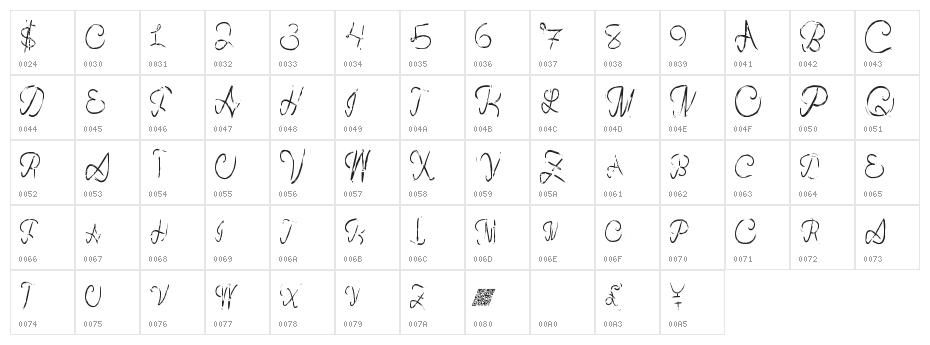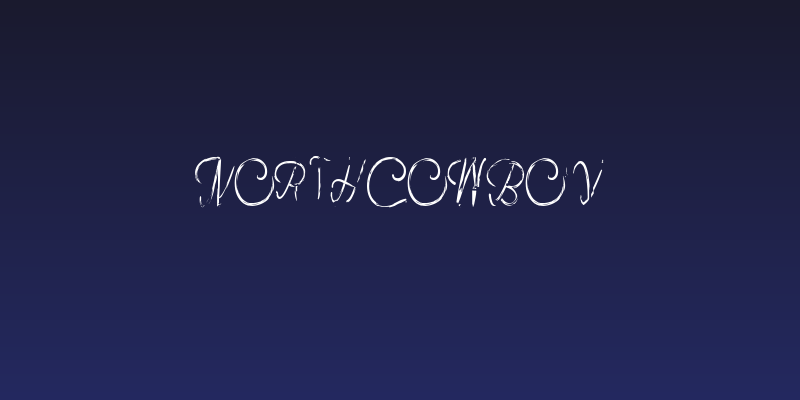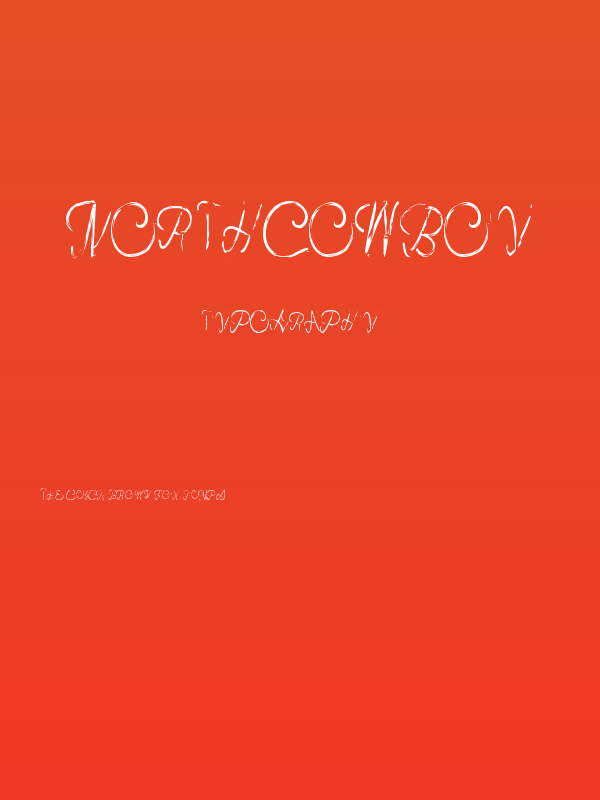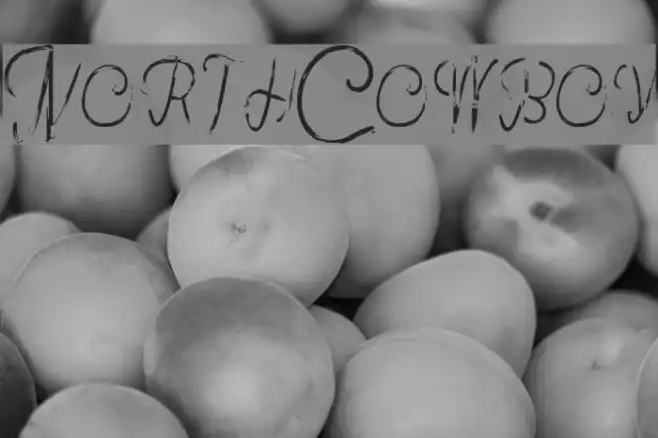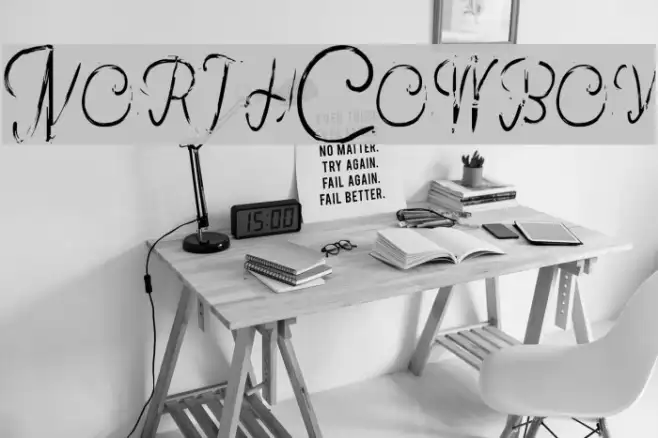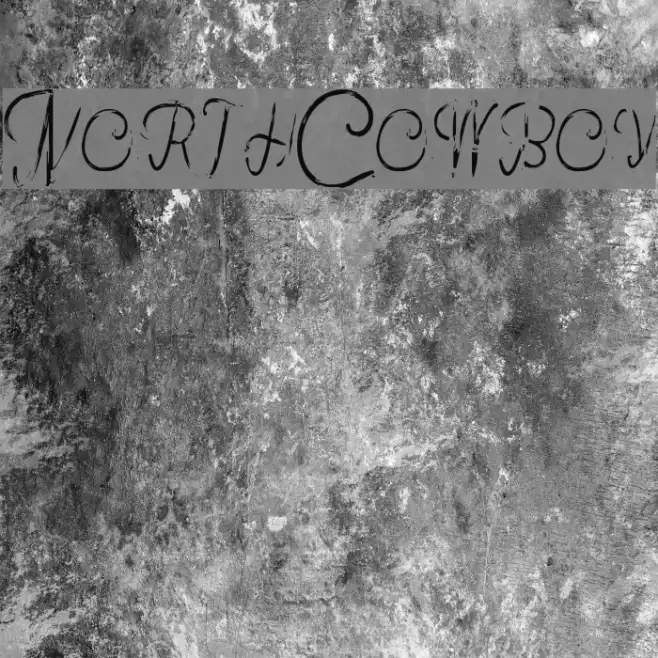
NorthCowboy Font
NorthCowboy Description
This font features a distinctive, decorative style with a hand-drawn appearance. The characters are crafted with a sense of movement and fluidity, incorporating artistic flourishes and unique, irregular strokes. The uppercase and lowercase letters maintain a consistent style, with playful loops and swirls that add a whimsical touch. The numbers and special characters follow the same aesthetic, ensuring a cohesive look across all glyphs. The font's rough texture and uneven lines give it a rustic, vintage feel, making it stand out in any design. Its artistic nature makes it suitable for creative projects that require a touch of personality and flair.
NORTHCOWBOY UPPERCASE
NORTHCOWBOY LOWERCASE
NORTHCOWBOY OTHER CHARS